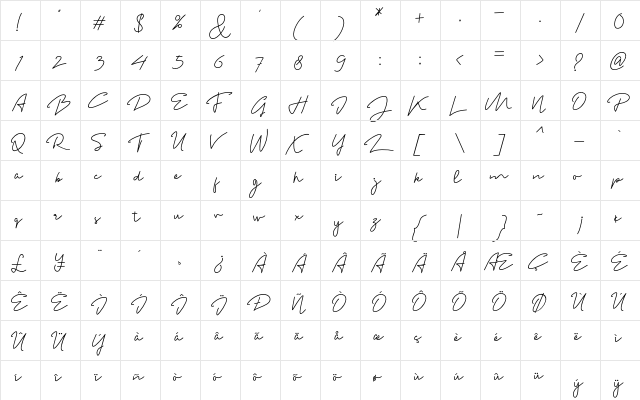
Madelon Script Regular
| Foundry | Ferdiansyah_ijemrockart Studio |
| Designer | Ferdiansyah_ijemrockart Studio |
Design Context for Madelon Script Typeface
Madelon Script flows with the natural rhythm of handwritten lettering, making it ideal for designs that call for warmth and personal expression.
Font Pairing: Combine Madelon Script with a simple geometric sans for maximum contrast — the tension between flowing curves and clean structure is a classic typographic pairing.
Pro Tip: Pair Madelon Script with a clean sans-serif for supporting text. The contrast between fluid script and geometric structure creates an elegant typographic hierarchy.